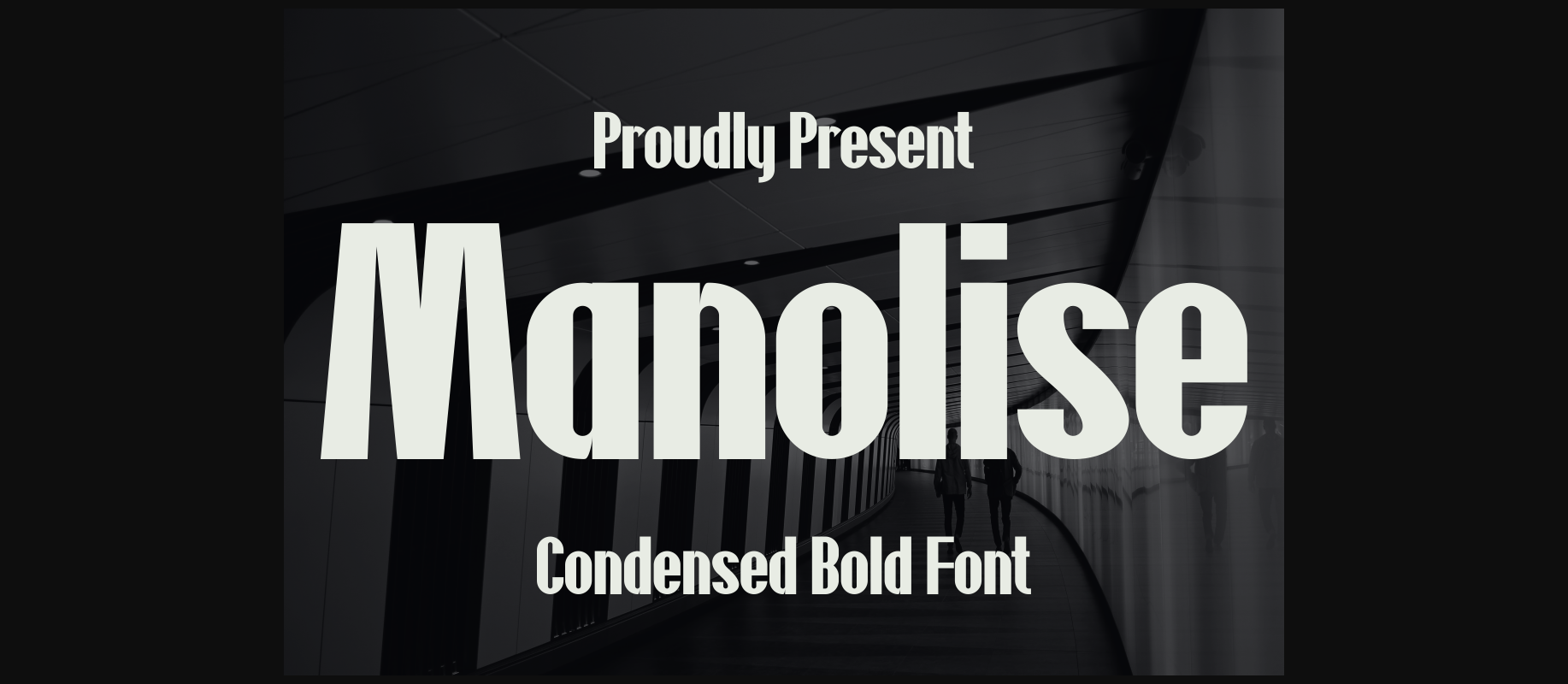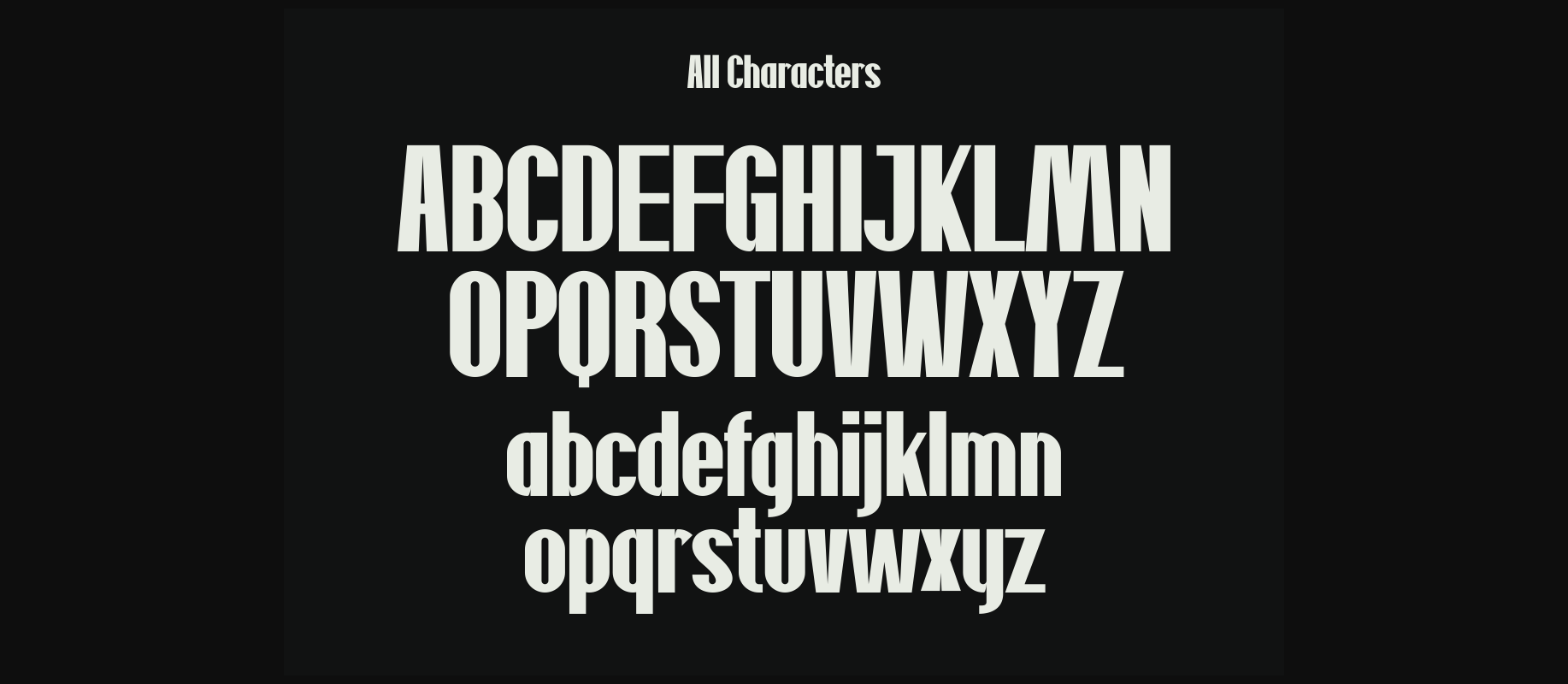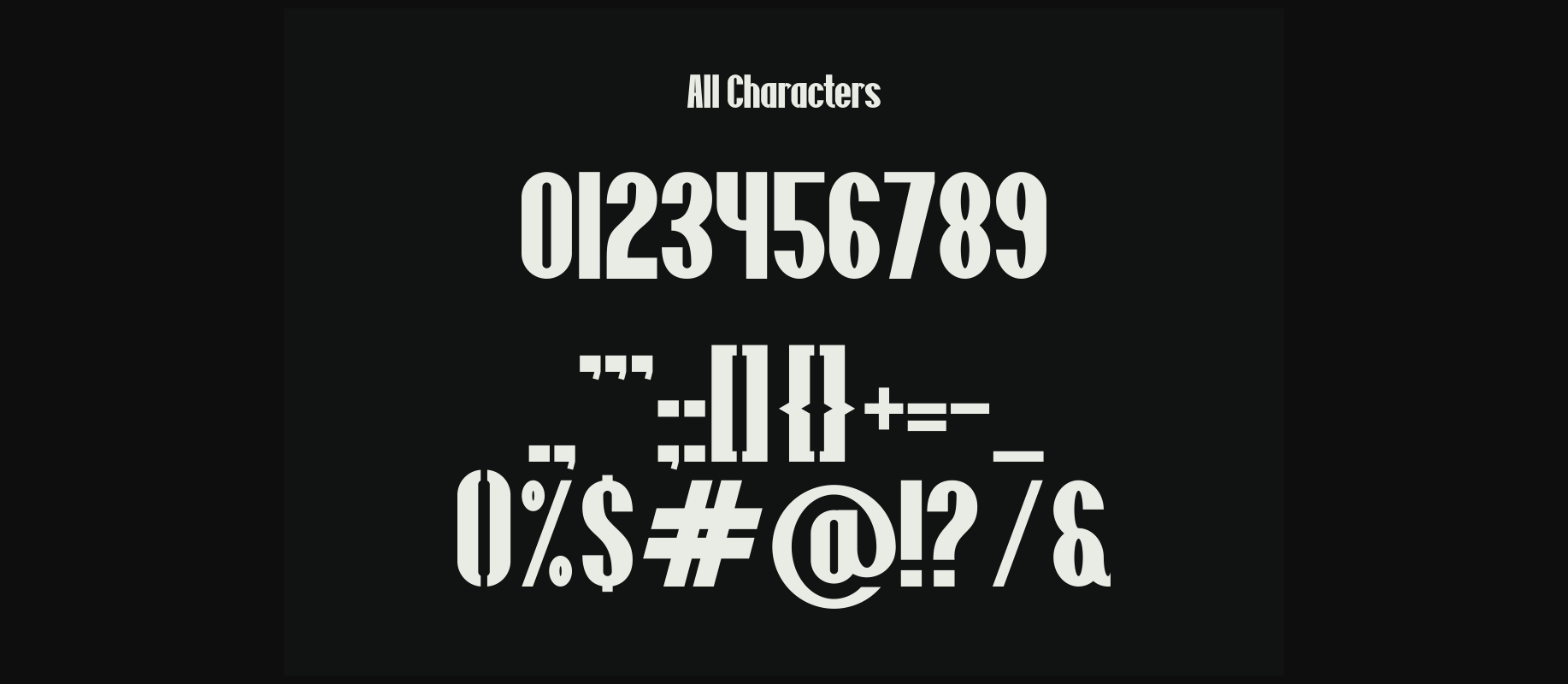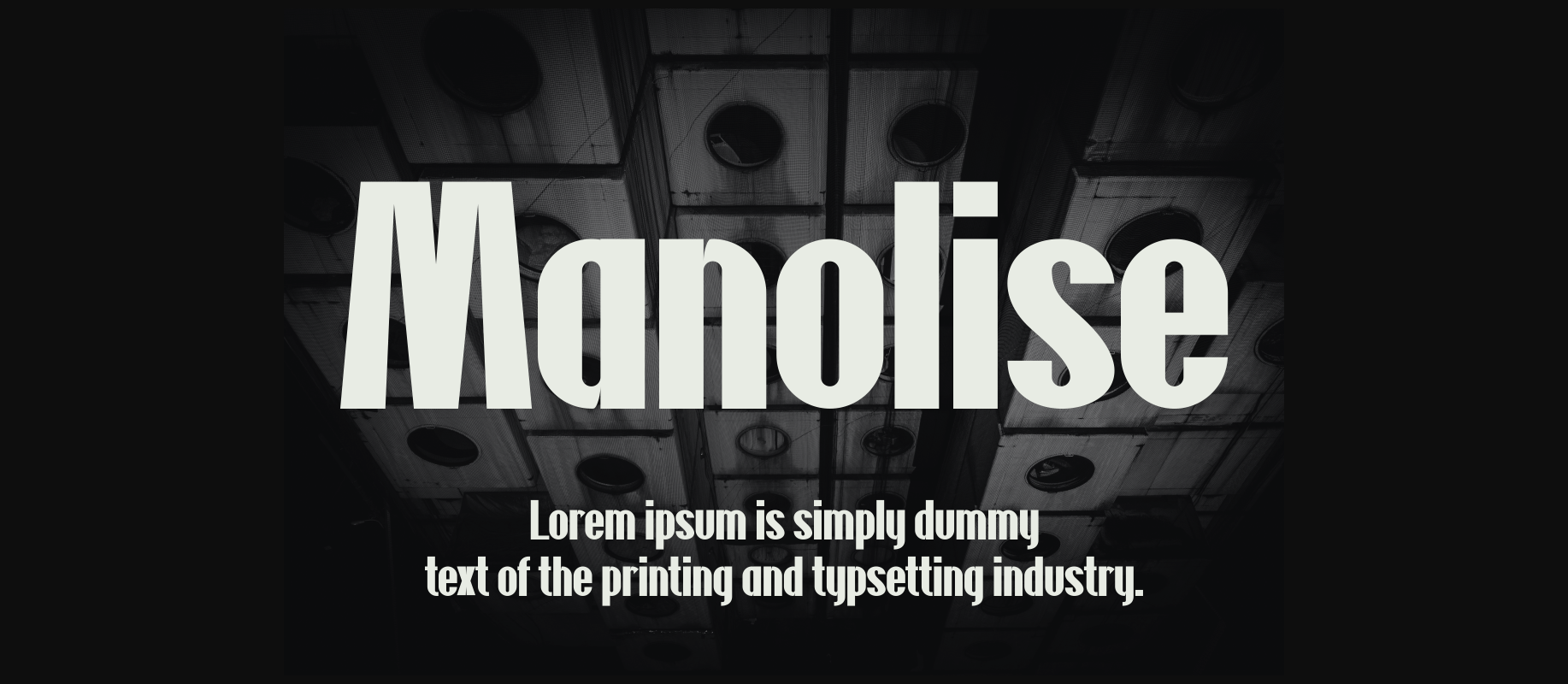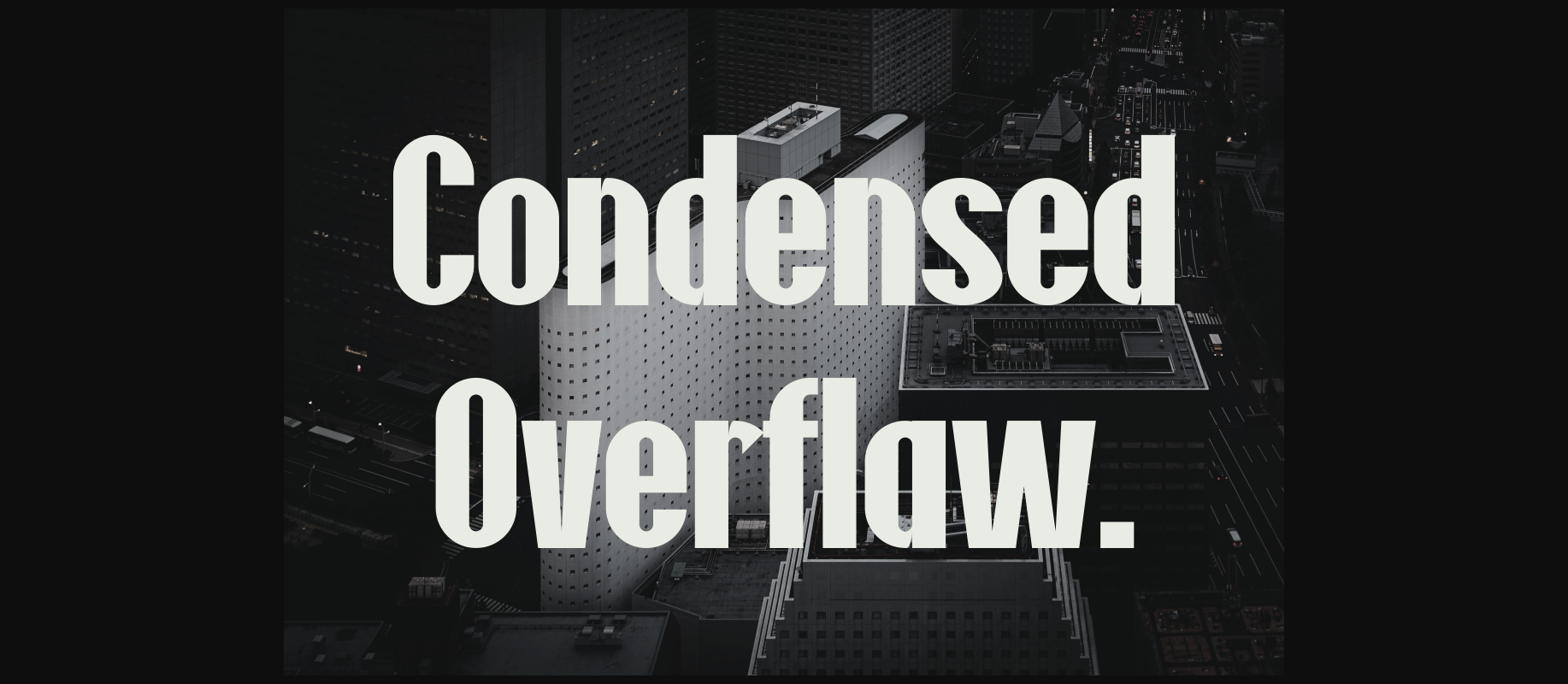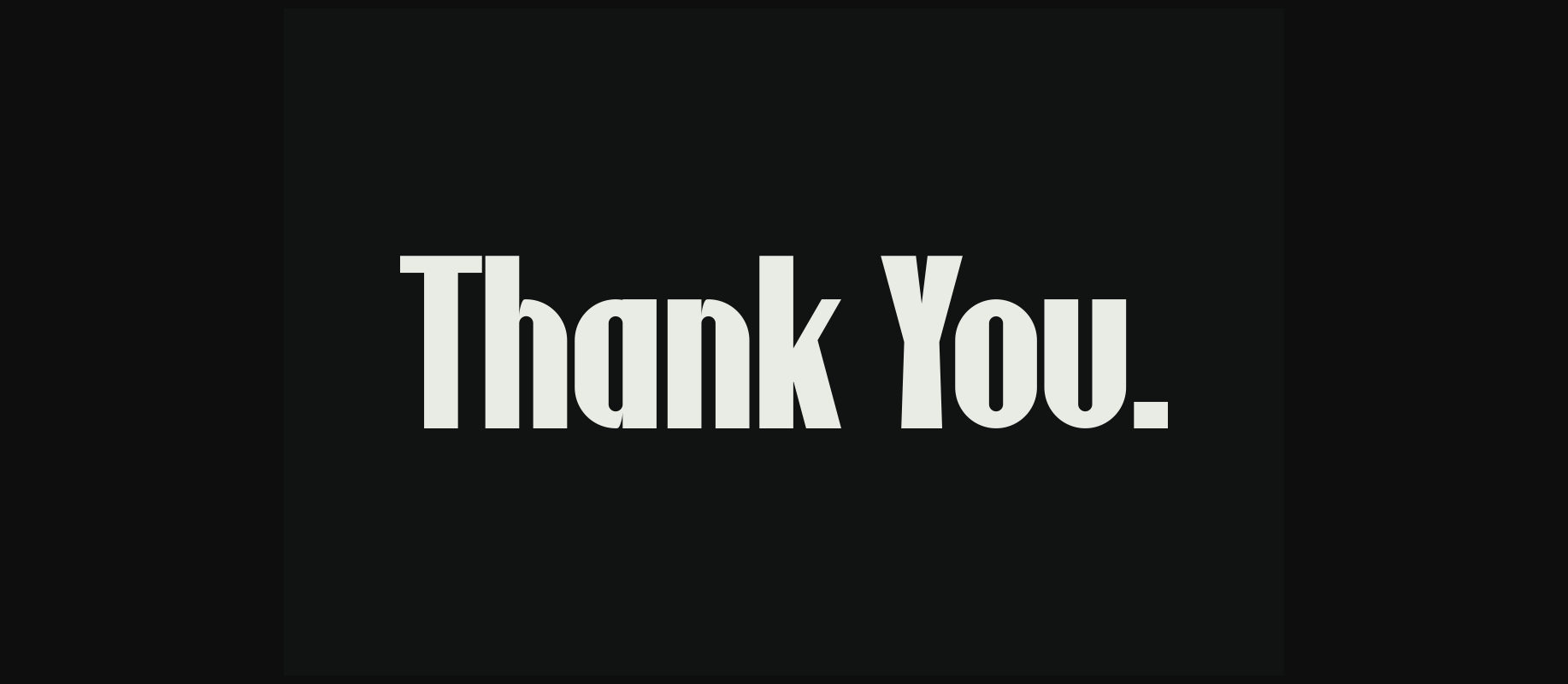
Manolise Font
About Manolise Font
**Manolise** is a super thick typeface with more traditional letter shapes, making it perfect for creating (or recreating) the concise look of film poster production credits.